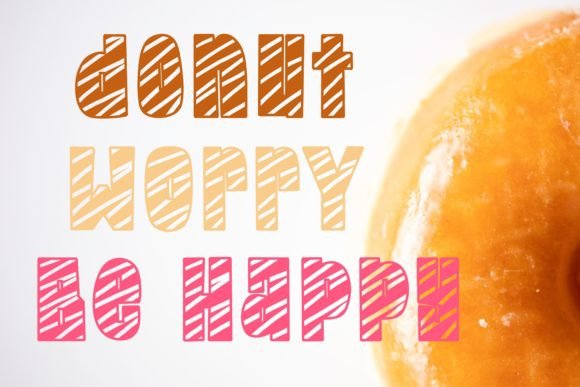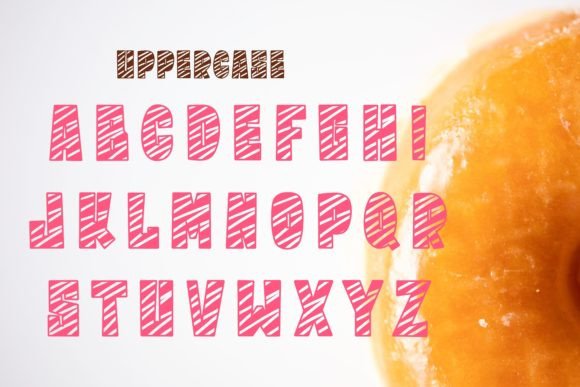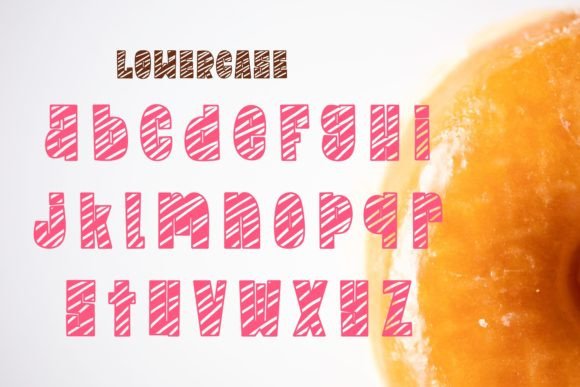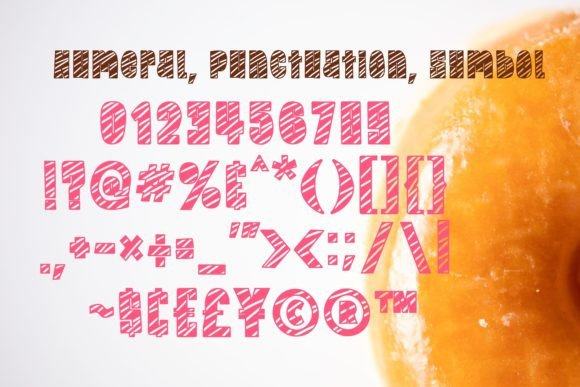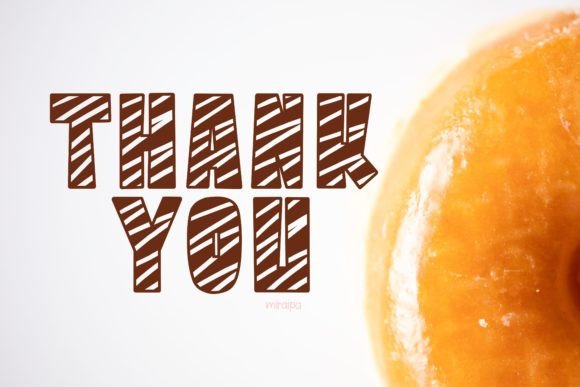
Introduction to Glazed Donut Font
Do you ever find yourself stuck in a creative rut, desperately searching for that perfect font to elevate your design project? I know I have. There’s nothing quite like the thrill of discovering a new font that perfectly captures the essence of your vision. And that’s exactly what happened when I stumbled upon the Glazed Donut Font. Its sweet and playful charm is like a breath of fresh air, making it an instant favorite among designers.
Whether you’re working on a free download, a marketing campaign, or simply a personal project, the Glazed Donut Font is an invaluable design resource. Its high-quality design and transparent background make it a versatile choice for any creative project. With its whimsical and quirky vibe, this font is sure to add a touch of magic to your designs.
Key Features of Glazed Donut Font
- Unique, hand-drawn design with a playful, whimsical feel, perfect for creative projects and design resources.
- Features a wide range of characters, including uppercase and lowercase letters, numbers, and punctuation, making it a versatile design resource.
- Glazed Donut Font is a unique and creative design element that can add a touch of personality to any project, from branding and marketing materials to digital products and websites.
Honest Review: Glazed Donut Font
- ✨ Unique and playful design style that’s perfect for adding a touch of whimsy to your projects
- ✨ High-quality font files that are clear and easy to read, even at smaller sizes
- ⚠️ Limited character set, which may not be suitable for longer blocks of text
- ⚠️ Not ideal for use in small font sizes, as the design can become pixelated
Overall, I think the Glazed Donut Font is a great addition to any designer’s toolkit, especially for creative projects that require a unique touch. While it may not be suitable for every project, it’s definitely worth downloading and experimenting with. Just be sure to keep an eye on font sizes and character counts to get the best results.
The Glazed Donut Font is perfect for a variety of use cases, including:
- Birthday party invitations and decorations.
- Food and beverage branding.
- Social media graphics and posts.